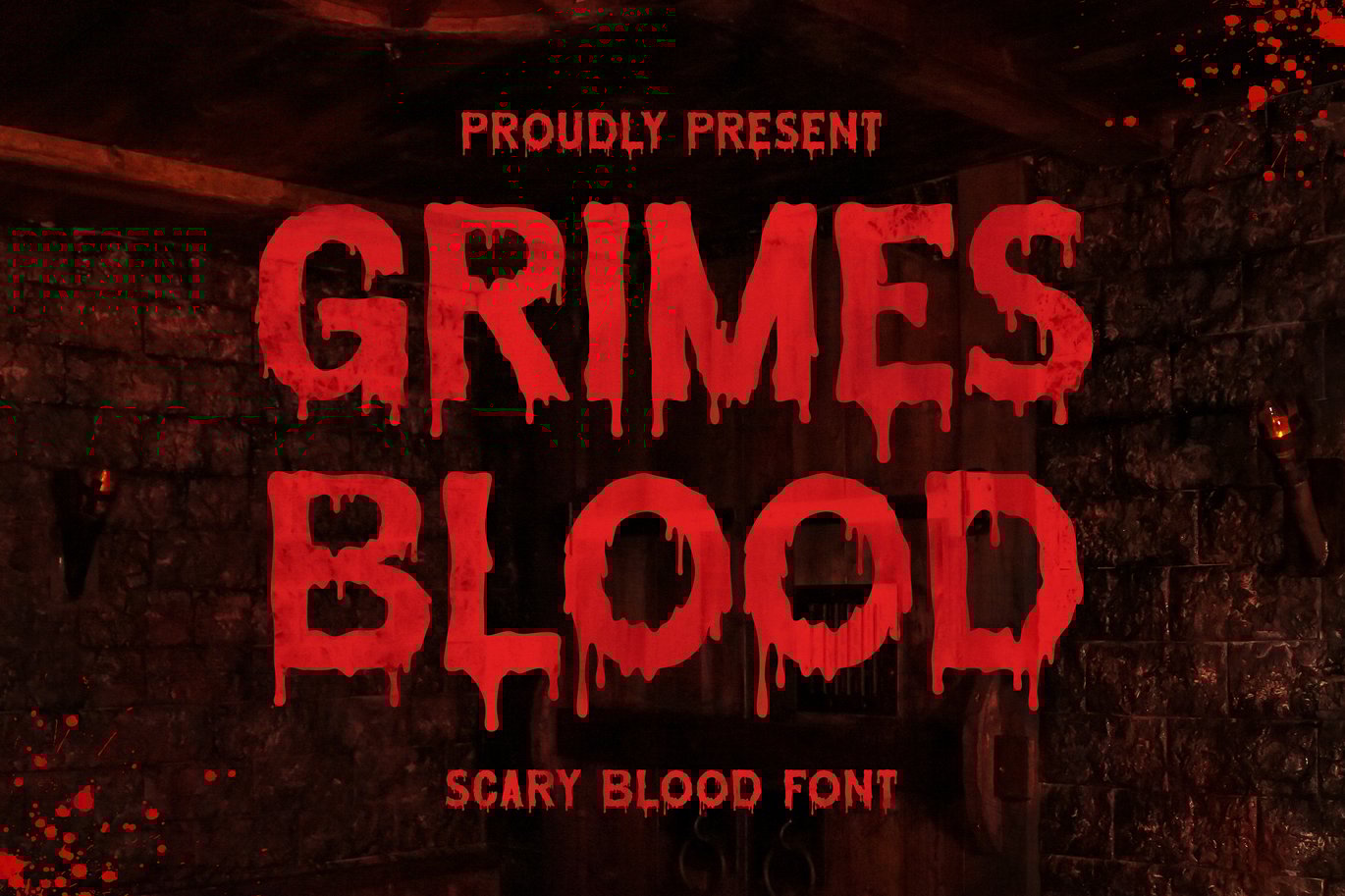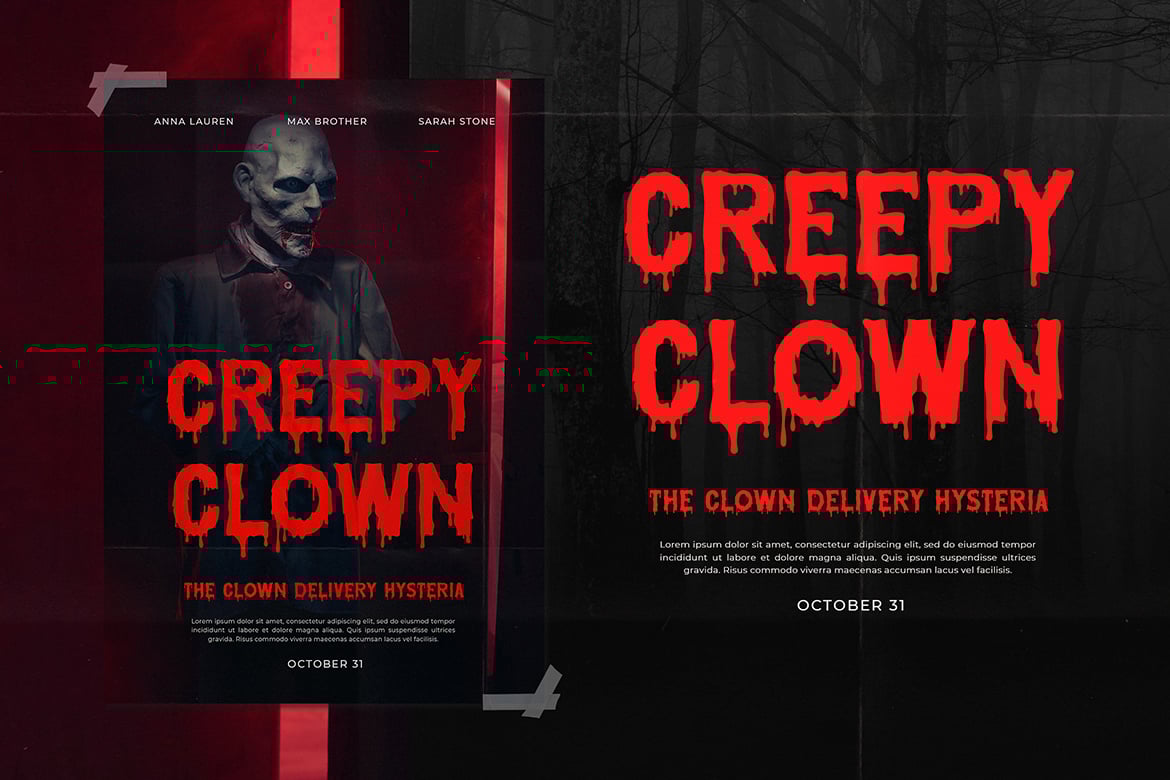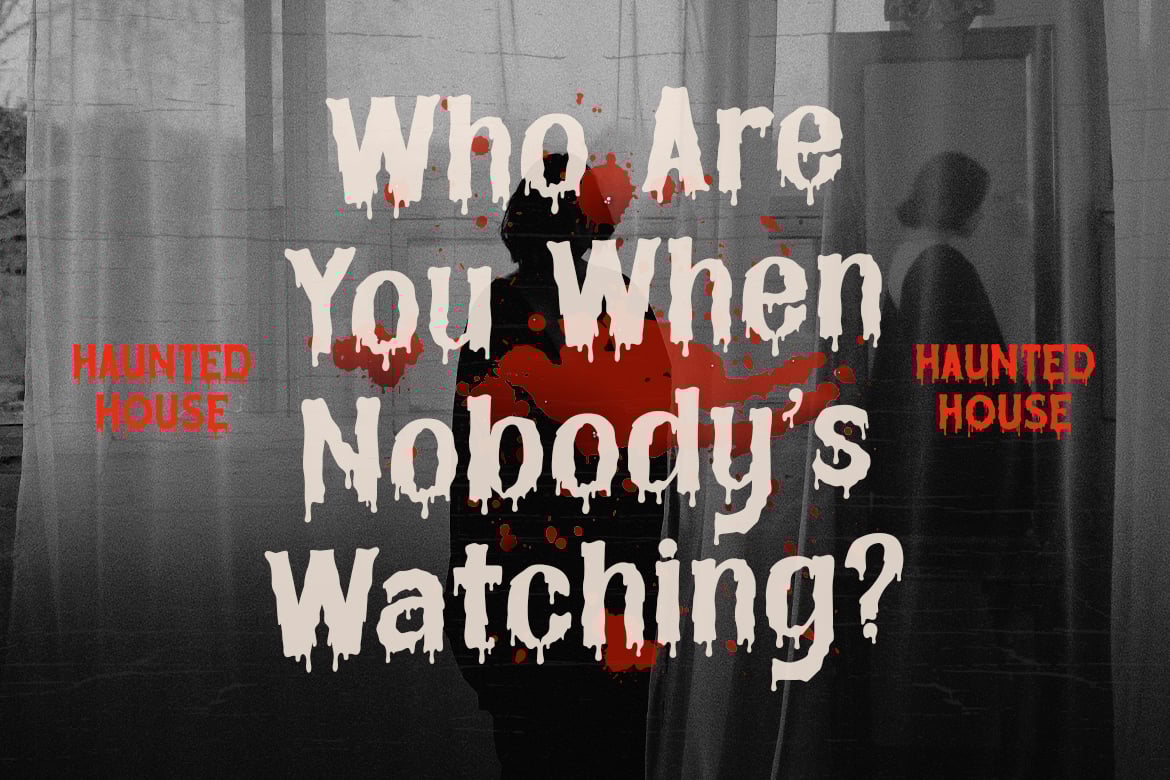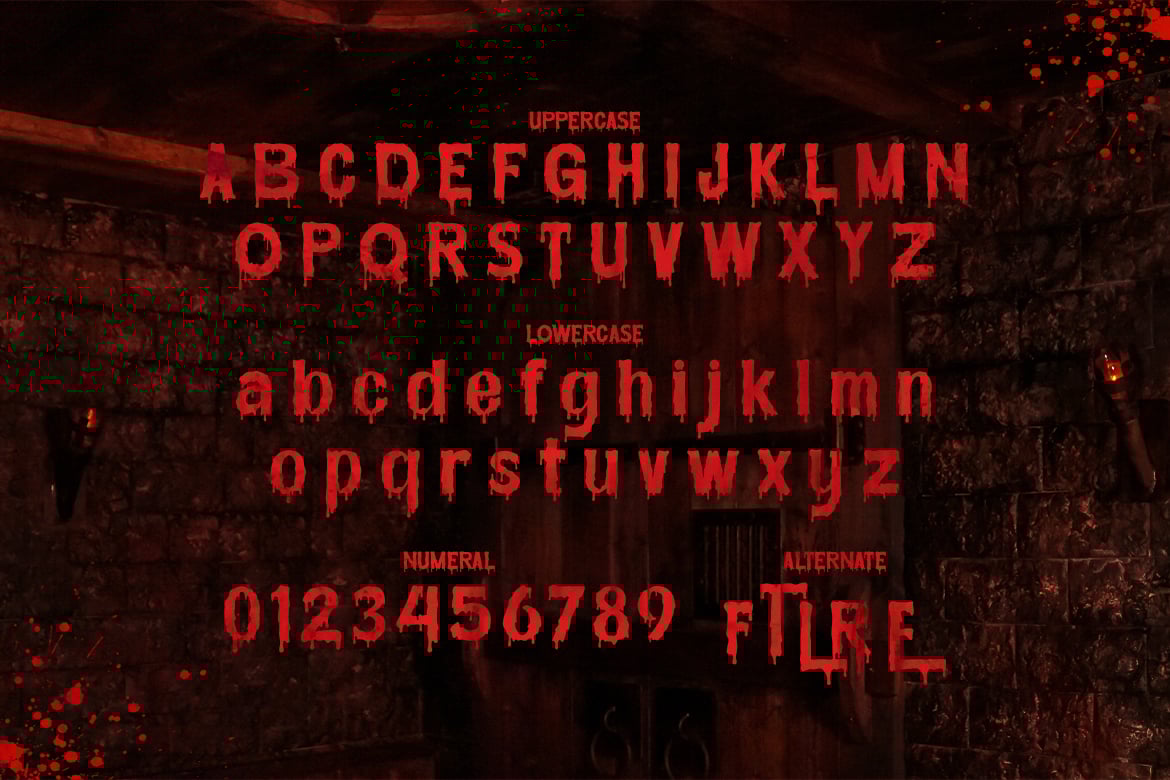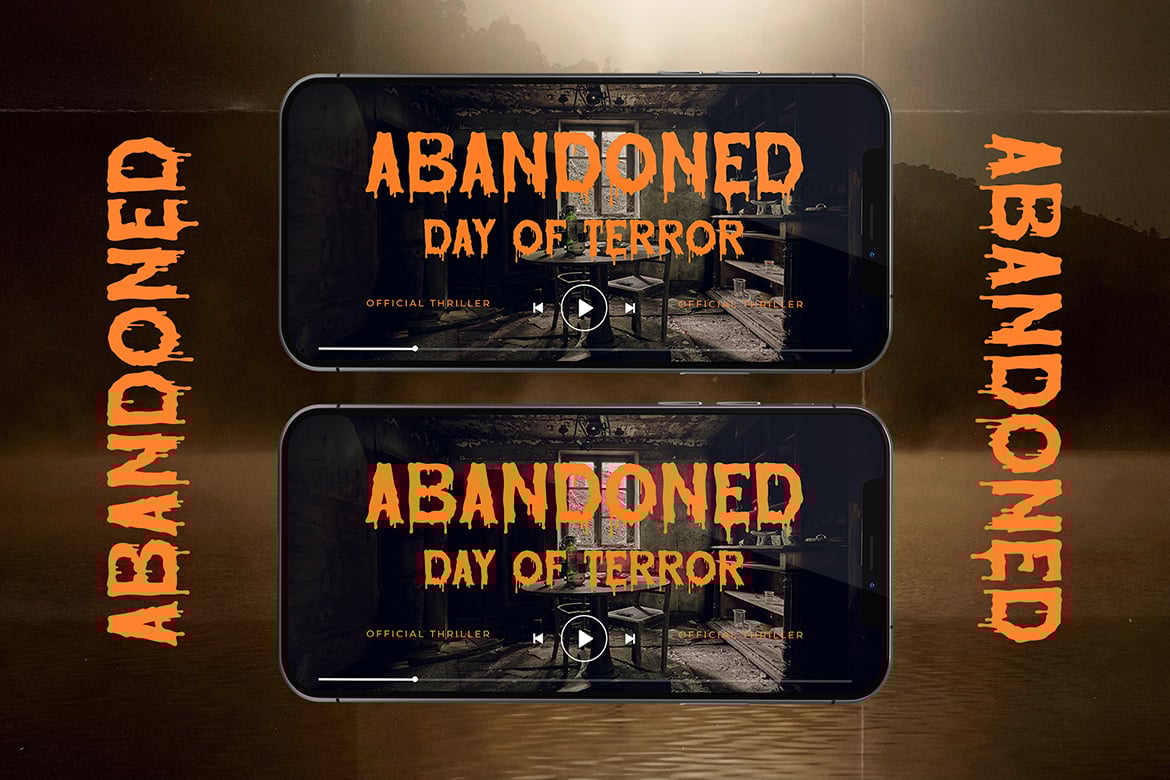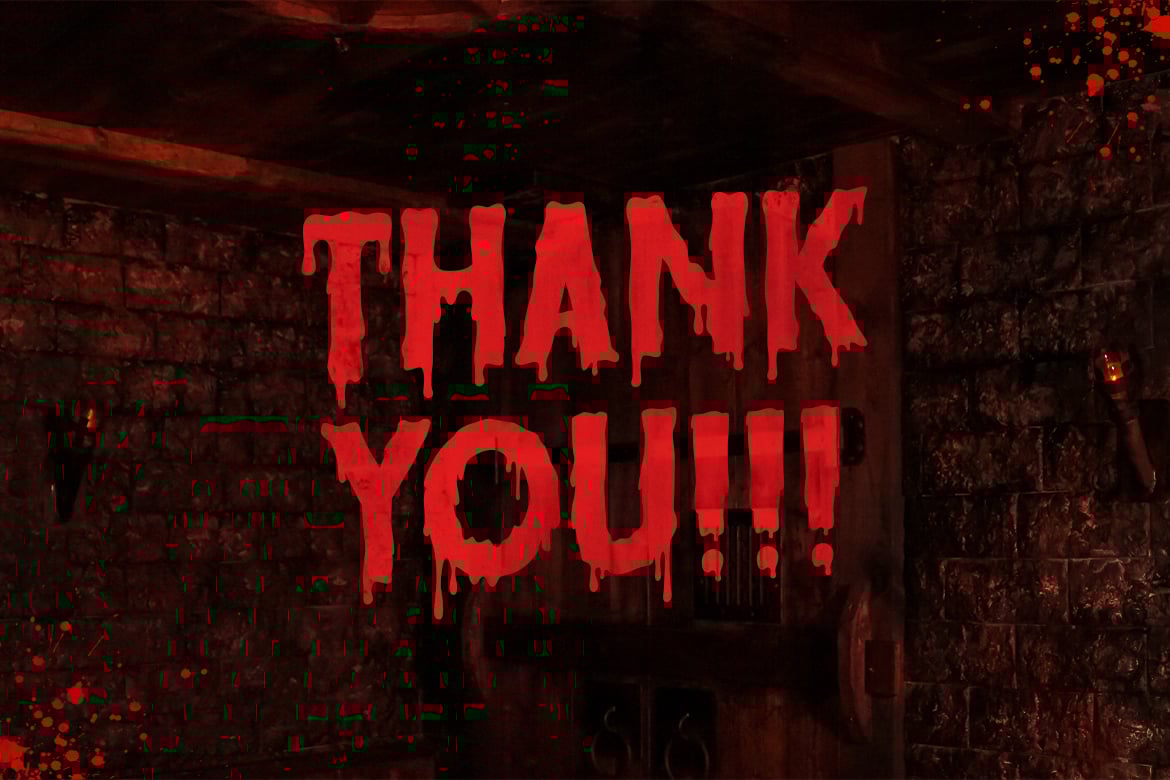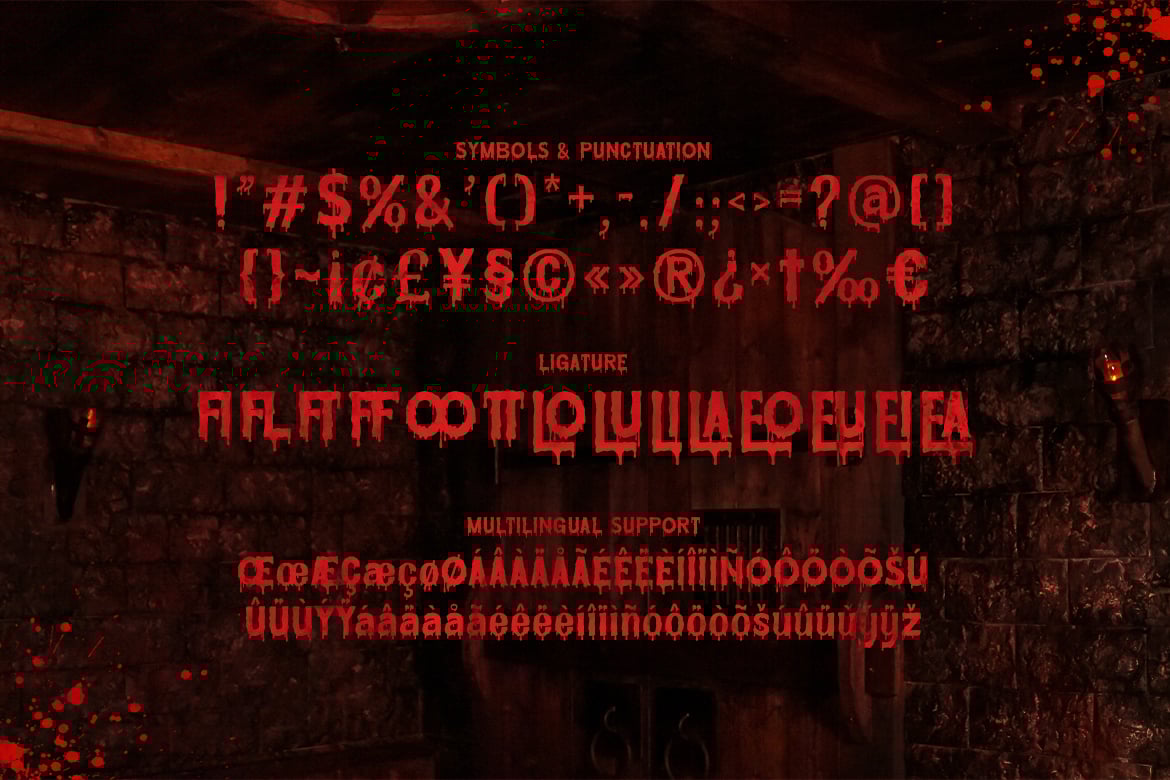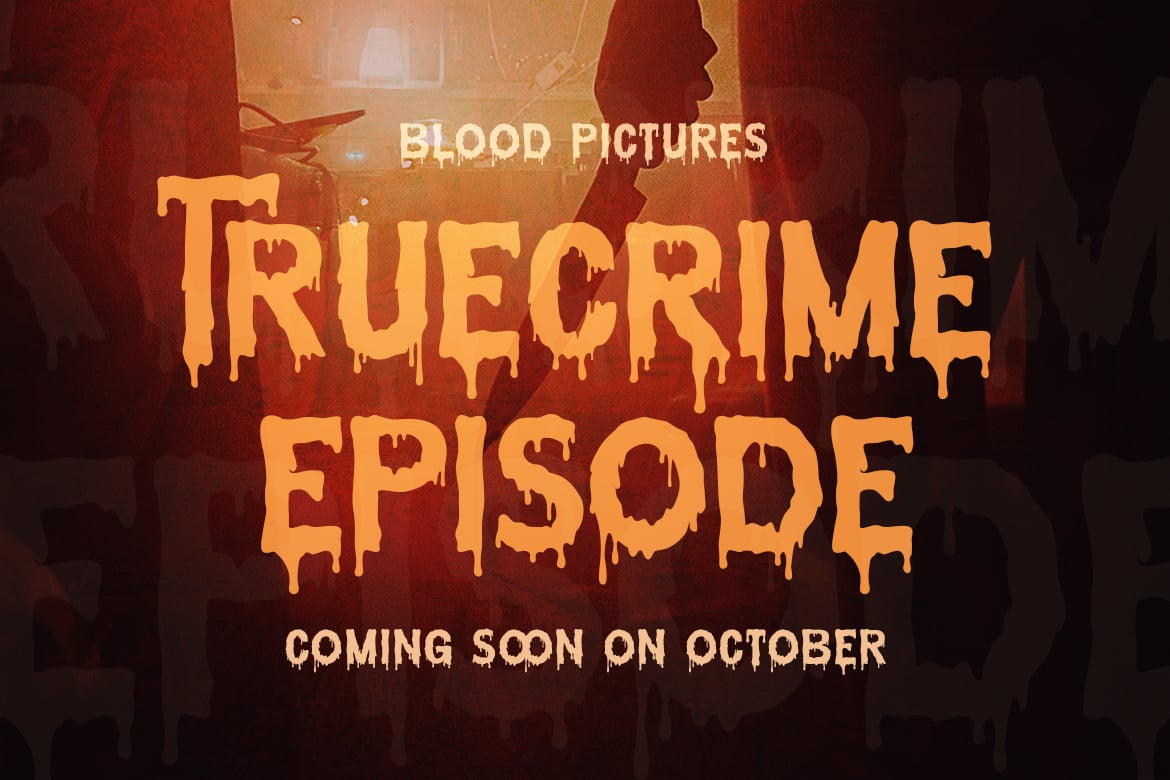
Grimes Blood – Scary Blood Font
Grimes Blood is a bloody, horror looking display font. Add it to your scary crafts, horror movie posters, t-shirts and anything else that requires a spectacular look.